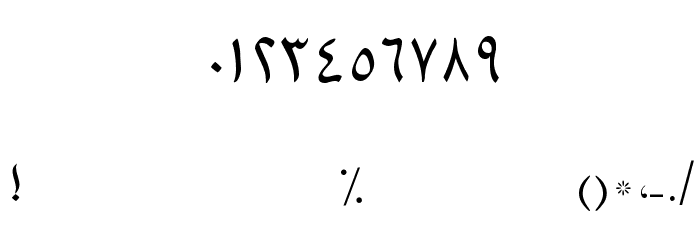
Wahid III Font
Wahid III Description
This font features a distinctive, flowing script style with a handwritten appearance. The characters exhibit a playful and whimsical quality, with varying stroke thickness that adds a dynamic feel. The numerals are particularly unique, with an artistic flair that complements the overall aesthetic. Special characters maintain the same fluidity, ensuring consistency across the font. The design is both elegant and approachable, making it suitable for creative and informal applications.
A whimsical, handwritten script font with dynamic strokes from Uncategorized fonts.
- Proposed Projects: Ideal for greeting cards, invitations, personal branding, and creative projects that require a personal touch.
- Use Case: Logos, Invitations, Creative projects